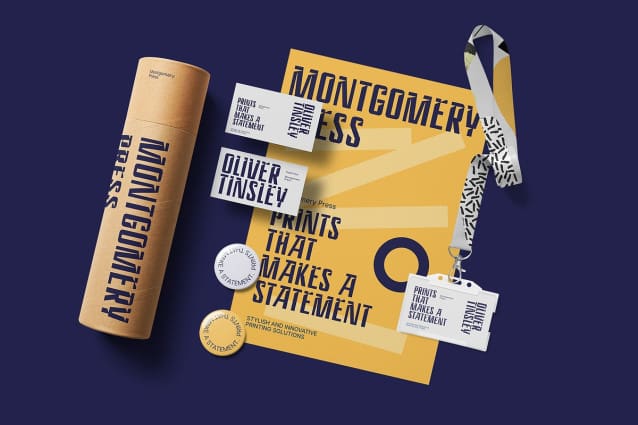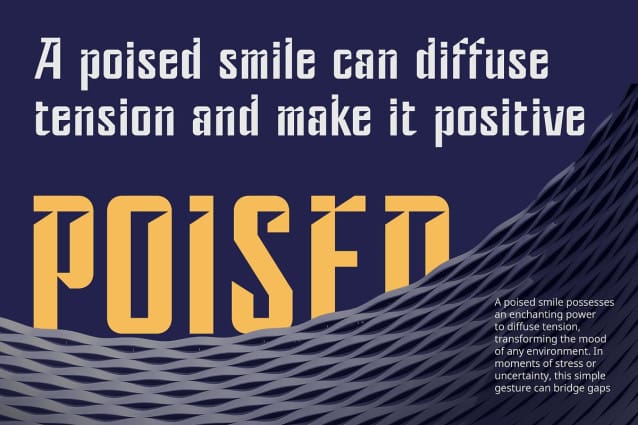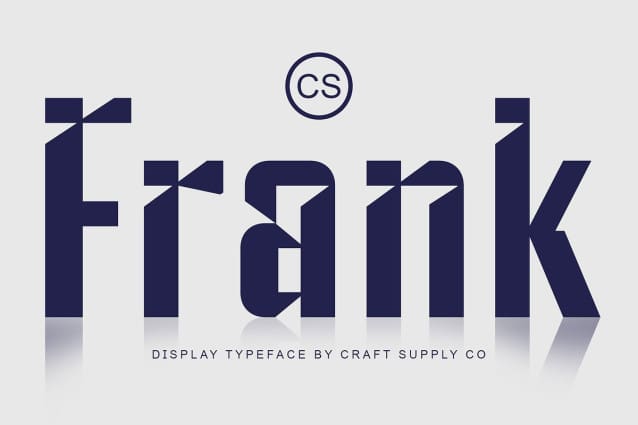
CS Frank Font
CS Frank Font is a modern sans serif display font that showcases a solid and bold shape, offering a clean and robust design that makes a strong visual statement. Its thick characteristics ensure that it stands out in any context, providing a contemporary aesthetic that is both appealing and effective. This font is meticulously crafted to balance form and function, making it an excellent choice for a variety of design applications.
High Readability for Professional Applications Designed with readability in mind, CS Frank maintains clarity even at larger sizes, making it ideal for professional designs that require strong communication. Whether used in branding, advertising, or promotional materials, its bold presence commands attention while remaining legible. This attribute is particularly valuable in settings where information needs to be conveyed quickly and effectively, ensuring that your message resonates with your audience.
Versatile for Various Contemporary Designs CS Frank’s modern impression allows it to seamlessly integrate into a wide range of design projects. From corporate branding and website headers to posters and flyers, this font enhances the visual appeal of any application. Its versatility ensures that it can adapt to diverse industries, whether you are creating sleek corporate identities or dynamic promotional content.